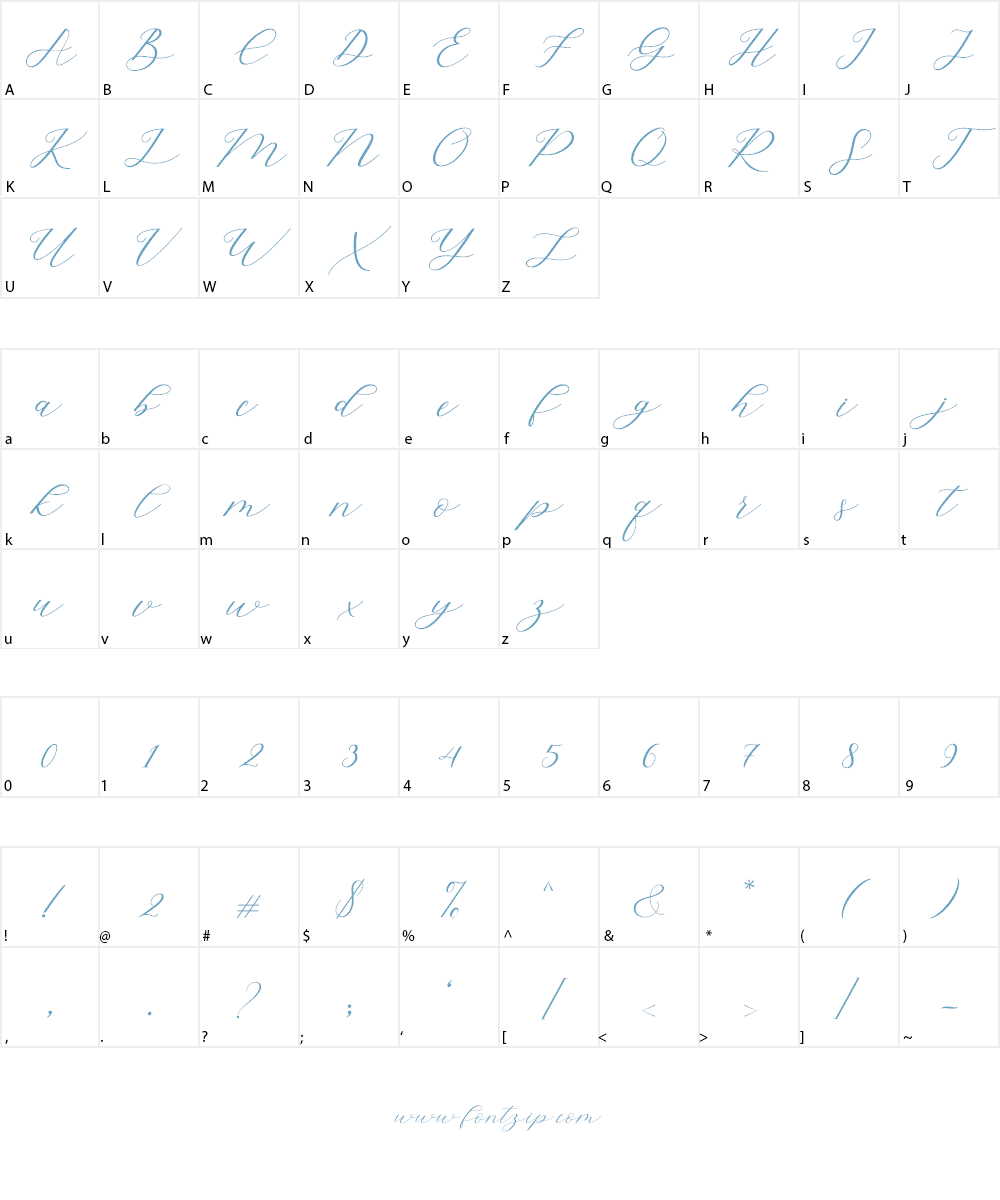
Hello Sarrah Script is modern feminine font, every single letters have been carefully crafted to make your text looks beautiful. With modern script style this font will perfect for many different project ex: photography, watermark, quotes, blog header, poster, wedding, branding, logo, fashion, apparel, letter, invitation, stationery, etc.
Hello Sarrah Script " include beautiful alternative glyphs and swirls in fonts including stylistic sets, etc. Open Type features can be accessed using Open Type smart programs such as Adobe Illustrator CS, Adobe Indesign & CorelDraw X6-X7 and Microsoft Word. And this font has given unicode PUA (especially font code). so that all alternative characters can be easily accessed by the craftsman or designer.